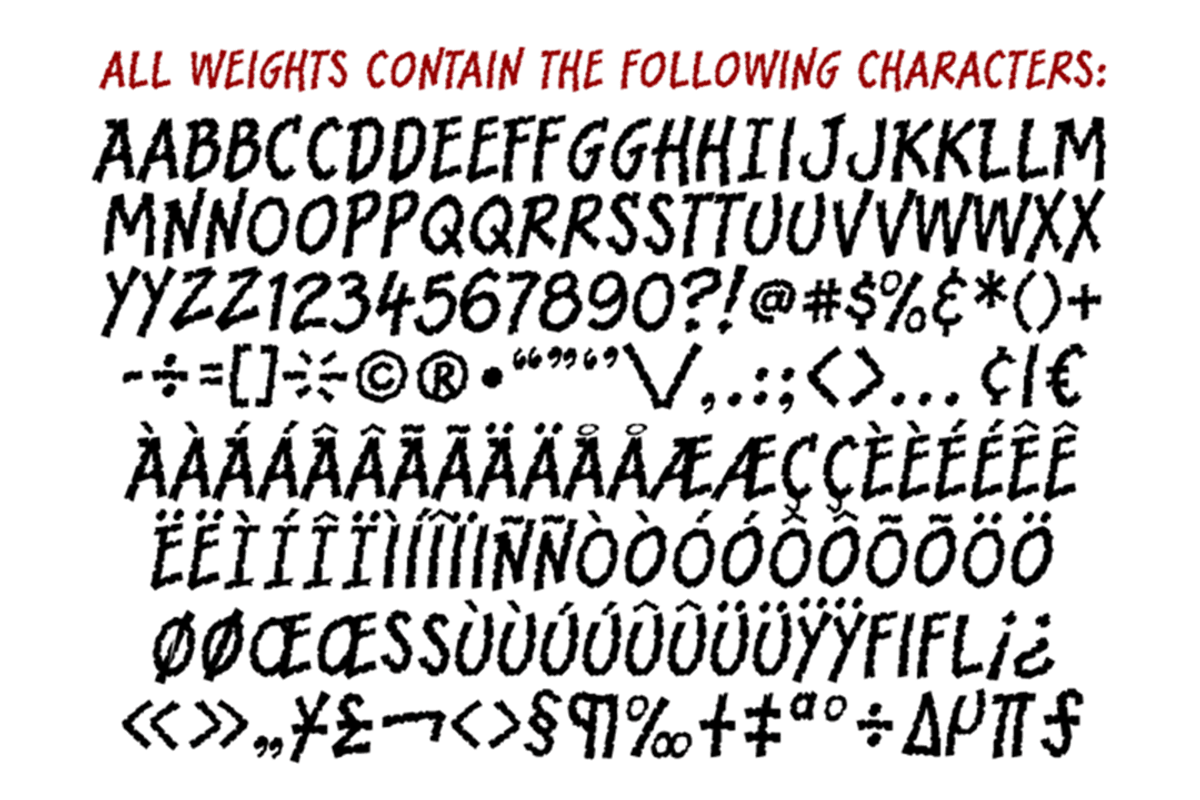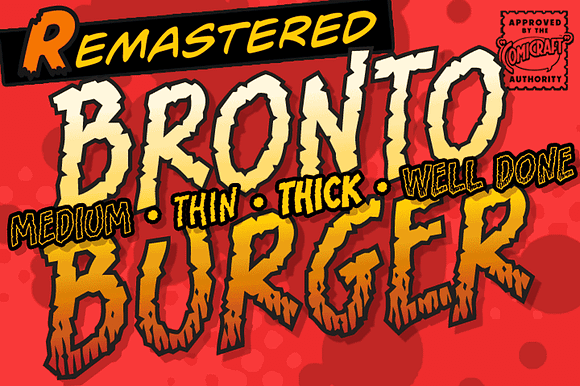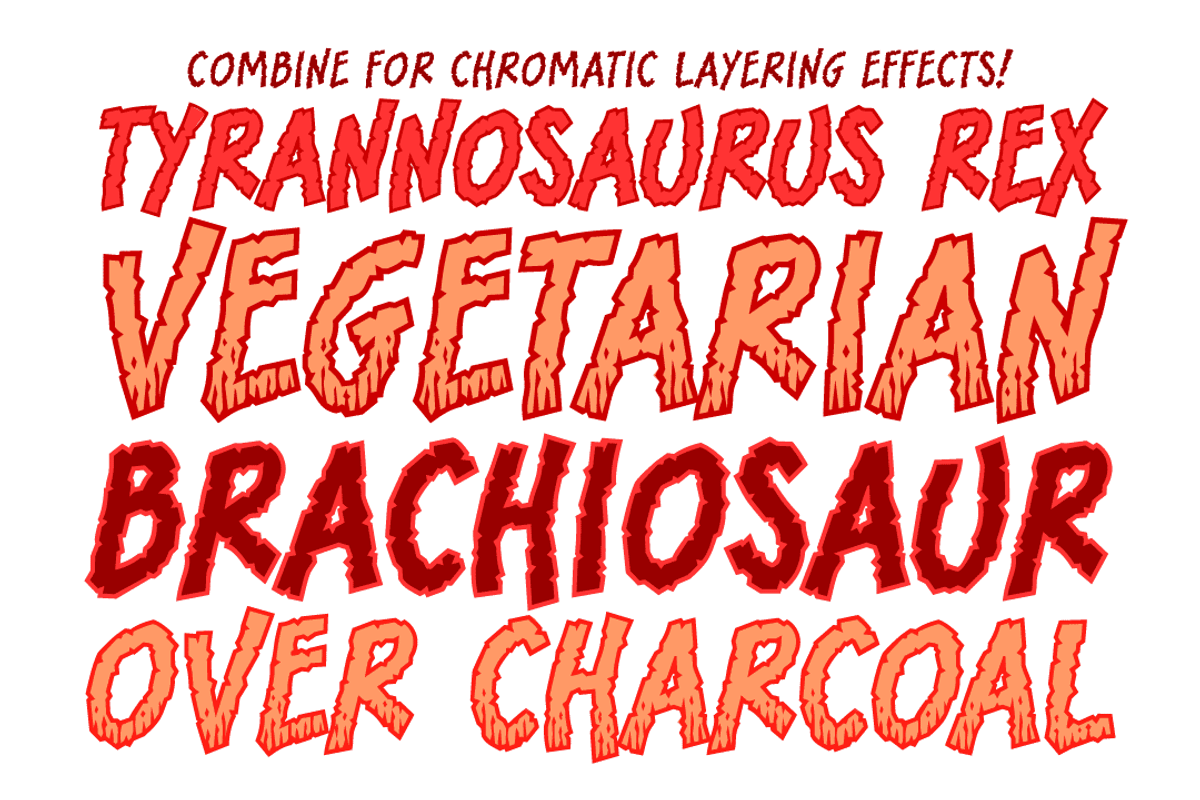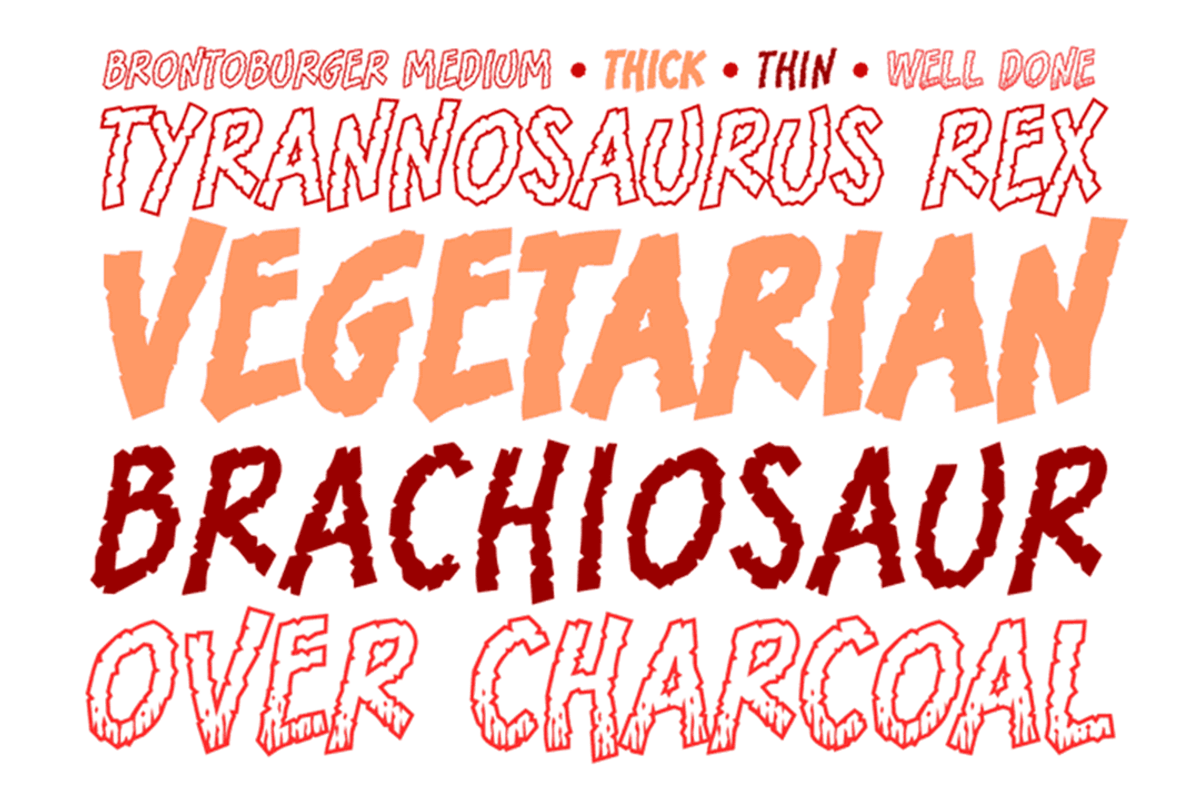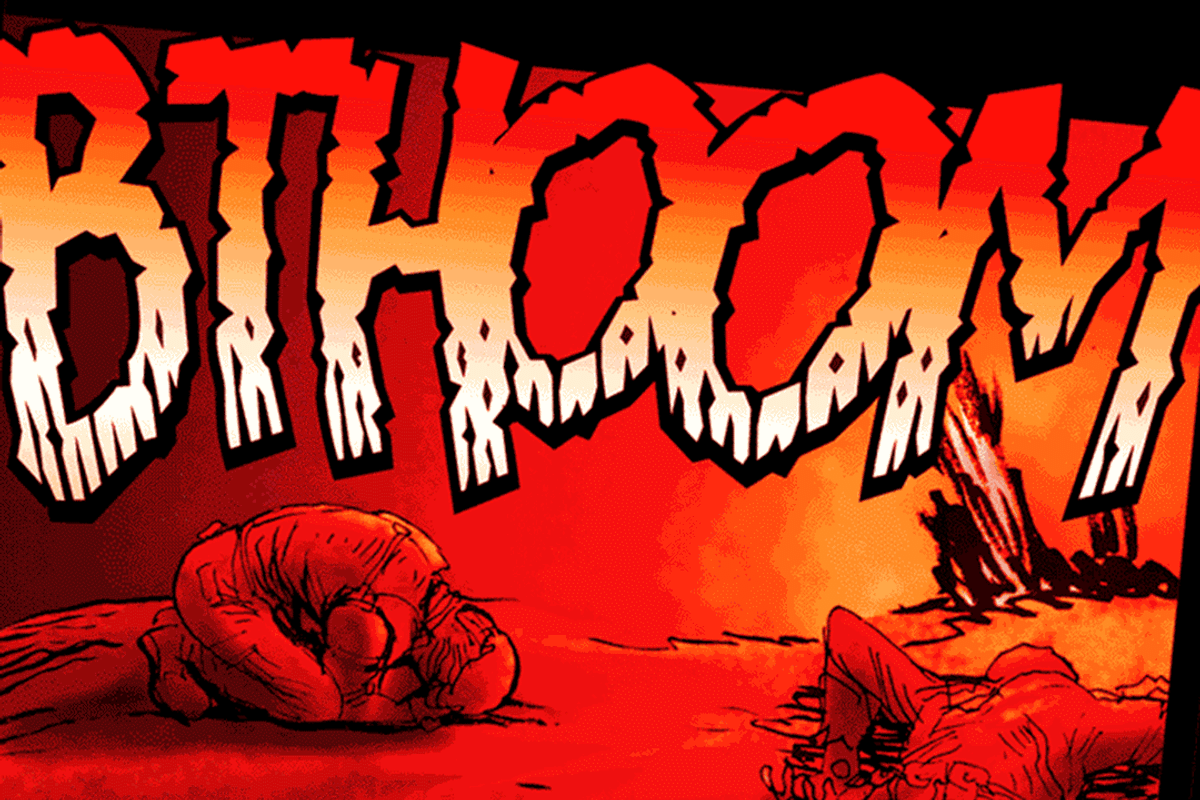
Bronto Burger
Eight tons of Meat-eating TYRANNOSAURUS REX vs. one Vegetarian BRONTOSAUR? CRUNCHTIME!
Bronto Burger by Comicraft Fonts fits naturally into Branding, posters, packaging, typography.